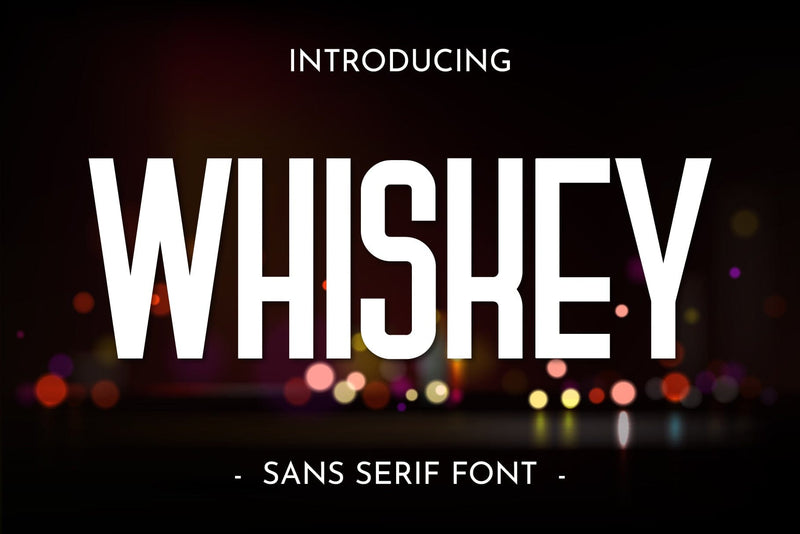
Whiskey Font
Whiskey Font is easy to read and highly legible, making it an excellent choice for both print and digital media. Its not too thick or too thin and tight spacing give it a minimalist and refined look that is sure to catch the eye. Whether you're designing for a fashion brand, a tech startup, or a lifestyle magazine, Whiskey Font will help you create a bold and memorable design.